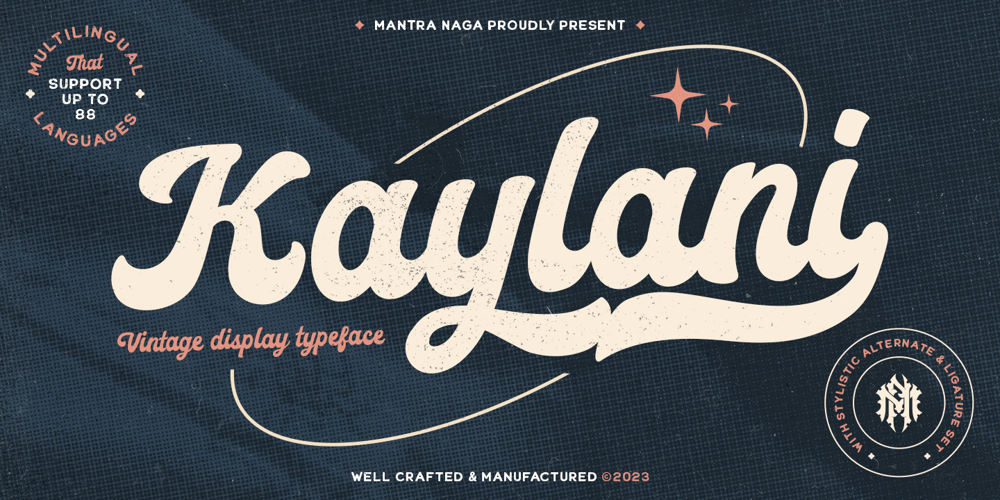
Kaylani
Kaylani font
Kaylani Font Family was designed by Fredo Eka Pratama and published by Mantra Naga Studio. Kaylani contains 1 styles and family package options. Introducing Kaylani – a Vintage Script Display Typeface. This typeface has many alternatives with swashes that can make your lettering/logotype more attractive.This font is suitable for logos and various other formal forms, such as invitations, labels, logos, magazines, books, greeting/wedding cards, packaging, fashion, makeup, stationery, novels, labels, or advertising. This font is PUA encoded, which means you can access all of the glyphs and swashes with ease!Feature: – uppercase & lowercase – numbers and punctuation – multilingual support – ligature – alternative – swashes – PUA encodedWe highly recommend using a program that supports the OpenType feature and the Glyphs pane like many Adobe and Corel Draw applications, so that you can view and access all variations of Glyphs. Please read the READ ME file to enable the feature.Happy Designing!